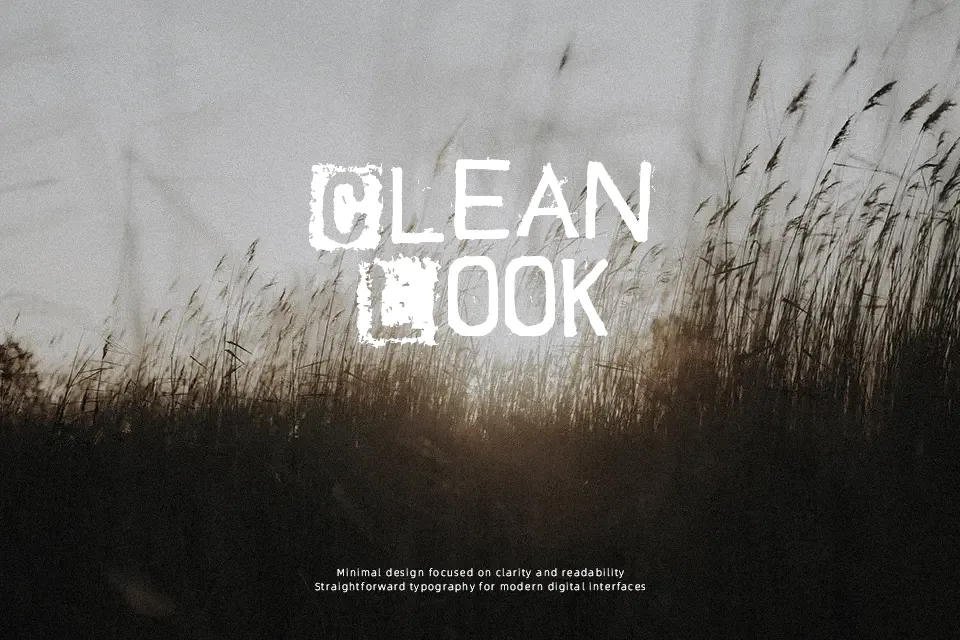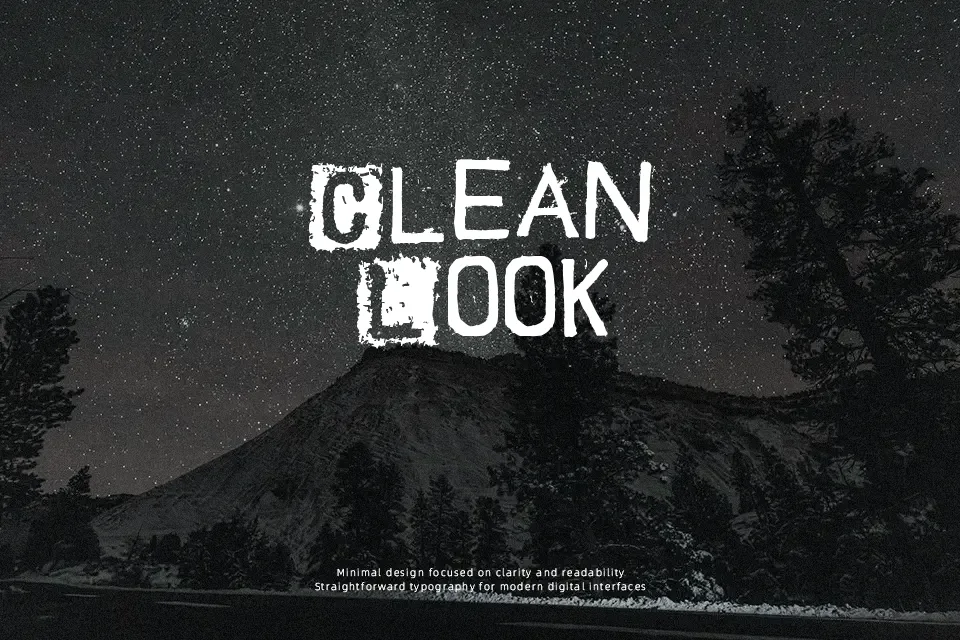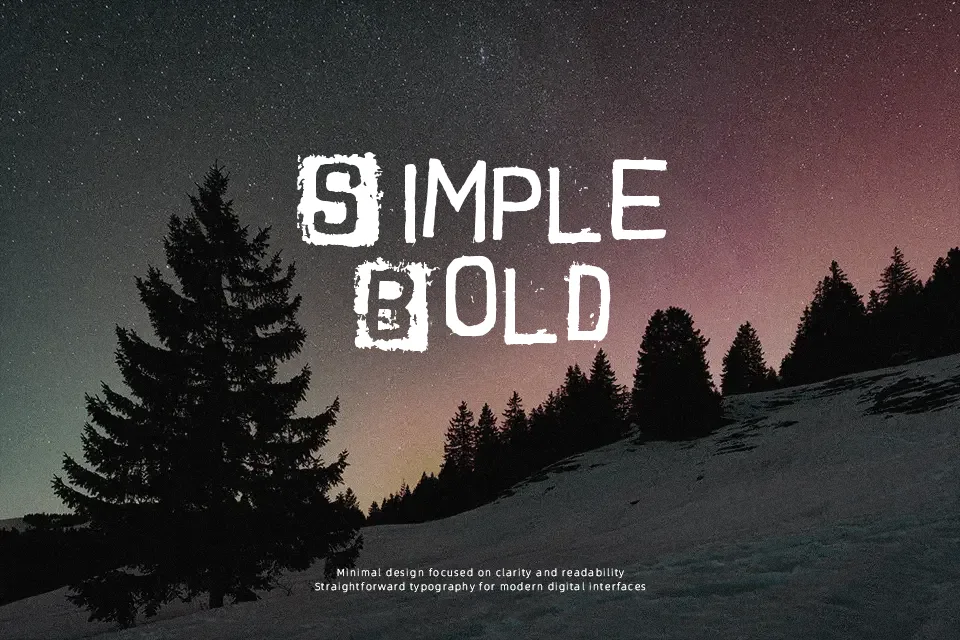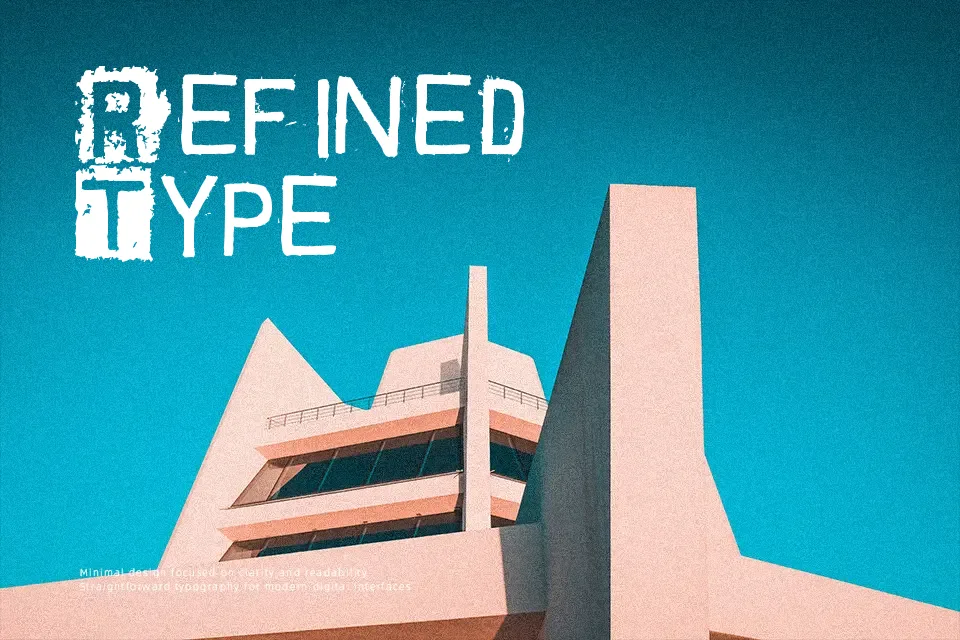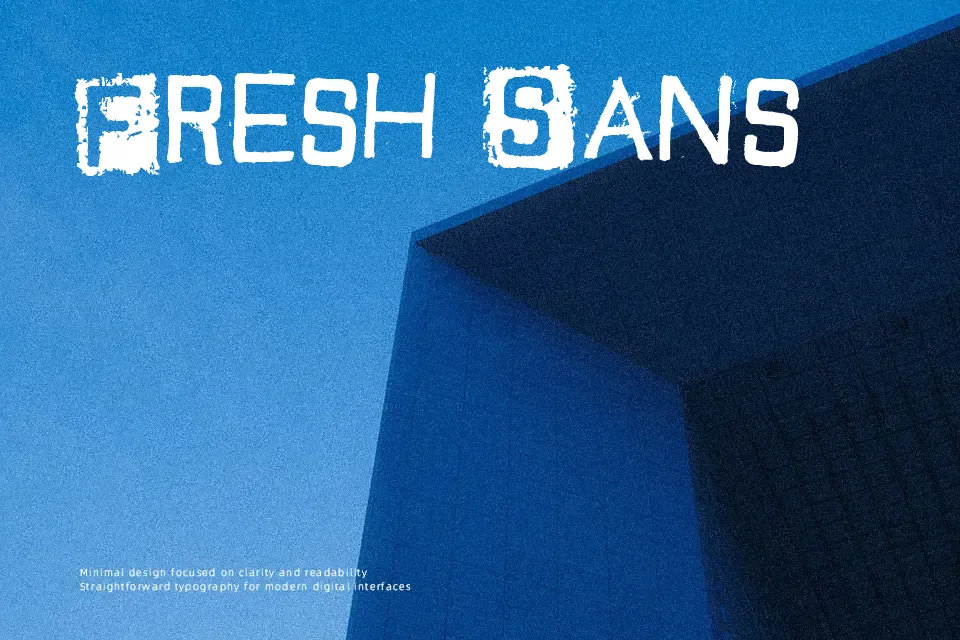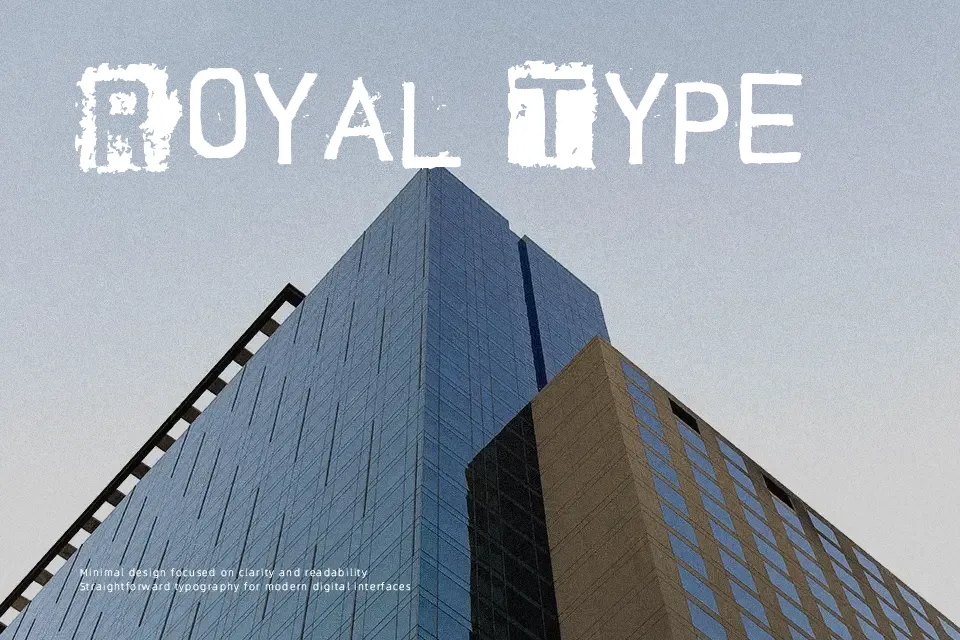
Trash Toys 02 Font
Trash Toys 02 Font features distressed, heavily weathered letterforms shaped by jagged contours, fragmented silhouettes, and corroded inner surfaces. Each character exhibits uneven stroke weights alongside irregular outlines that mimic decayed mechanical stencil stamps. Proportions remain compact and sturdy, paired with tight letter spacing that binds uppercase strings into dense, menacing text blocks. Readability remains sharp at prominent display dimensions, making the typeface well suited for industrial packaging, skate decks, and extreme sports merchandise. However, the chaotic edge noise quickly collapses into illegible clutter within continuous reading environments. Small captions lose structural definition entirely, confirming that the design works reliably only as an oversized display solution.
Best For: industrial product packaging, punk concert posters, extreme sports merchandise, horror video game titles
Not Ideal For: continuous body text, mobile interface labels, corporate identity documents, dense spreadsheet tables
Perfect for film, gaming, and headline, with a bold and decorative style.